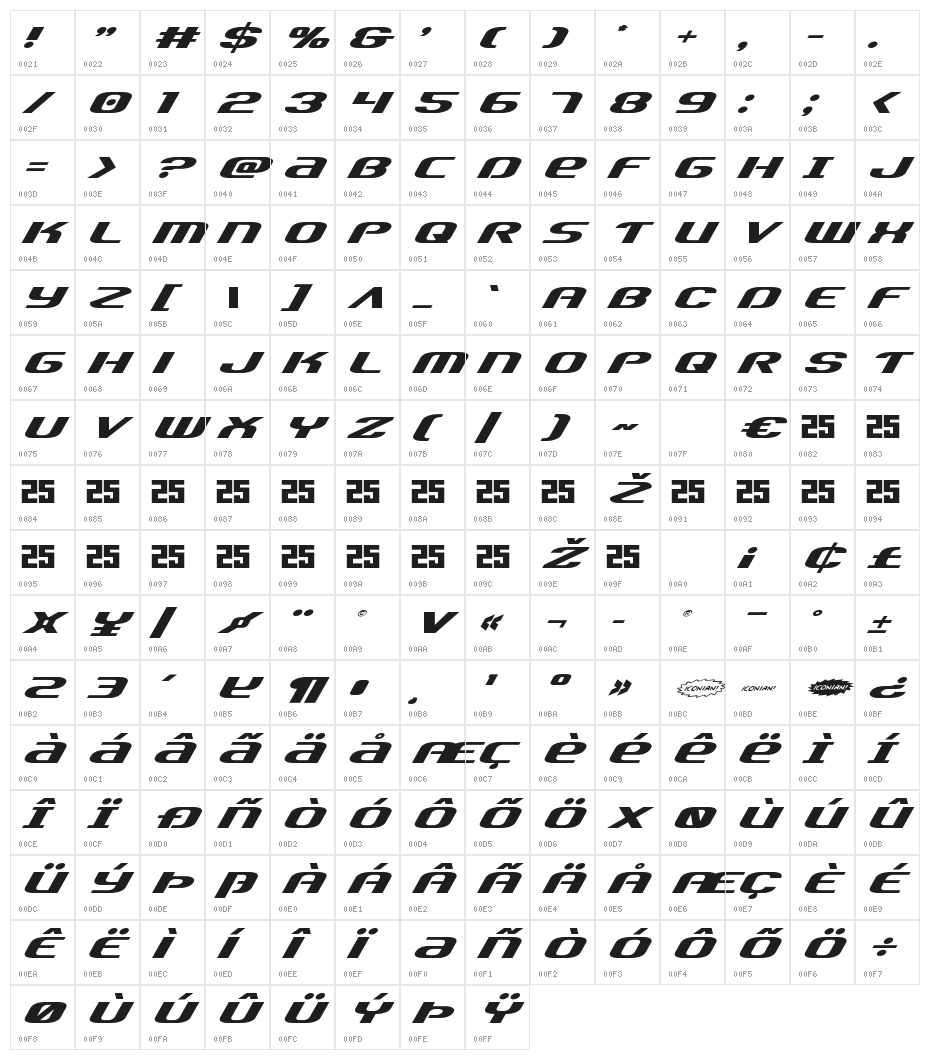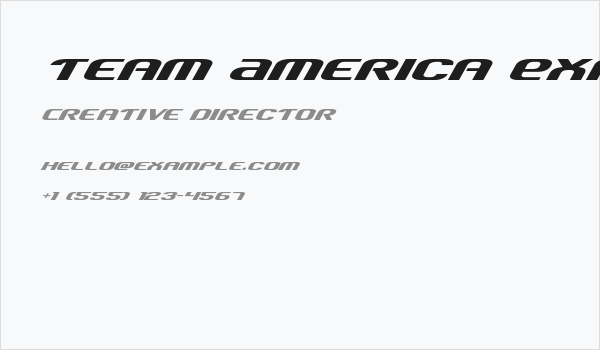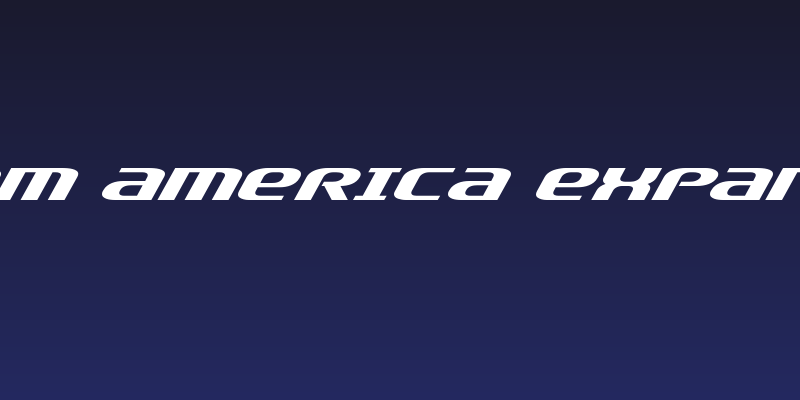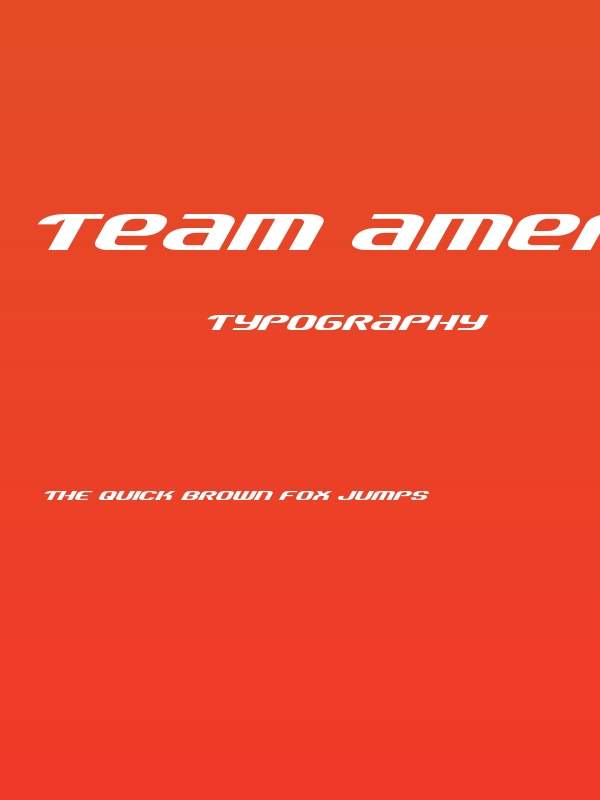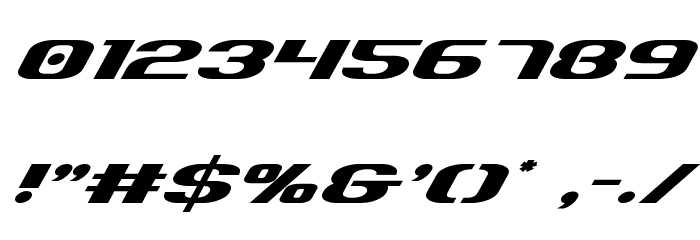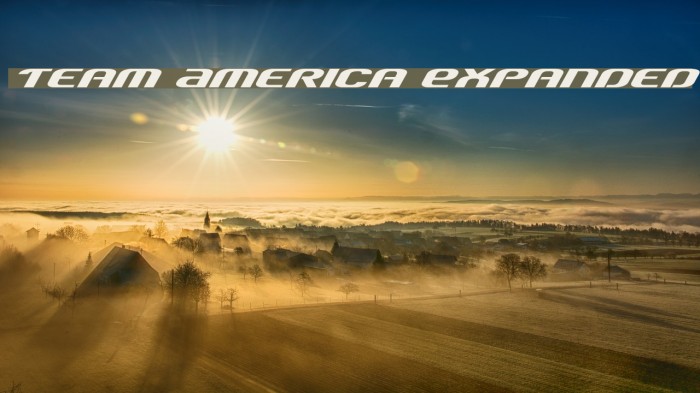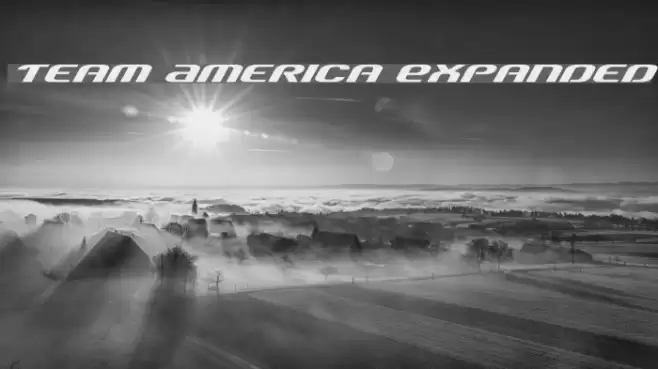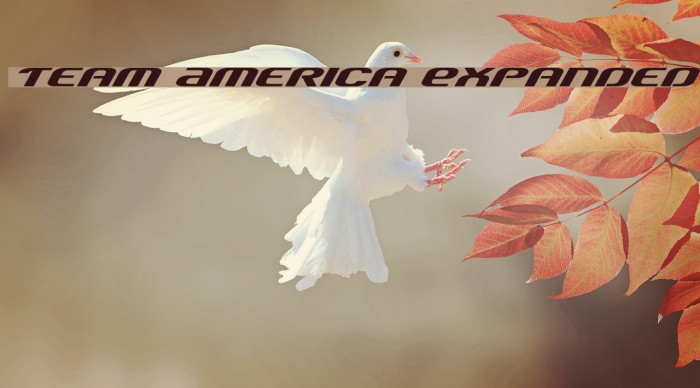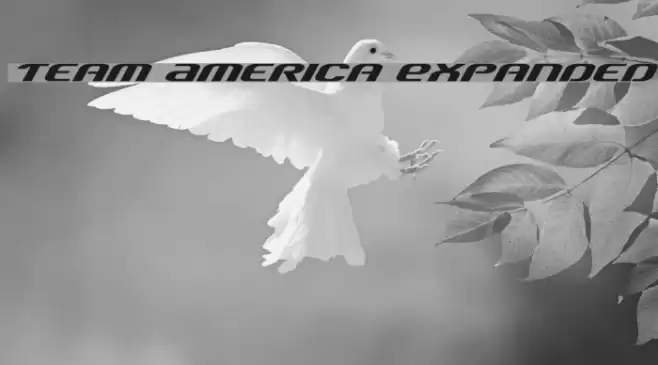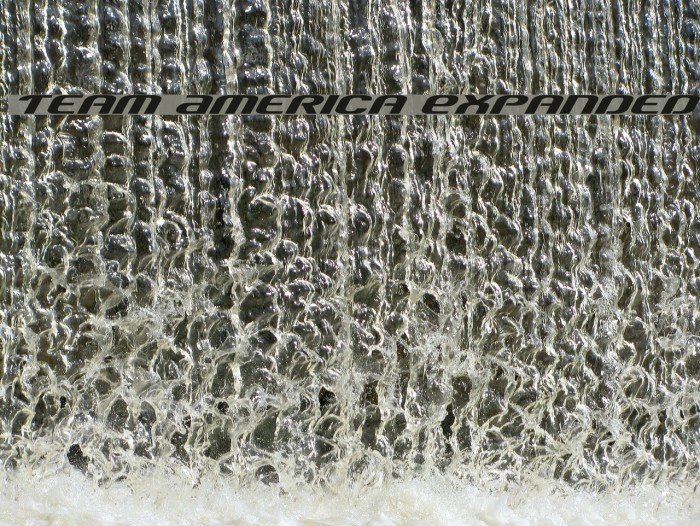
Team America Expanded Font
Team America Expanded Description
This font features a bold and dynamic style with a futuristic flair. The characters are slanted, giving a sense of motion and speed, which is enhanced by the sharp angles and clean lines. The uppercase letters are uniform in height, while the lowercase letters maintain a consistent style, ensuring readability. Numbers and special characters are designed to match the overall aesthetic, providing a cohesive look across all glyphs. The font's expanded width adds to its bold presence, making it suitable for impactful designs.
| Proposed Projects | Ideal for sports branding, automotive designs, video game titles, and dynamic posters. |